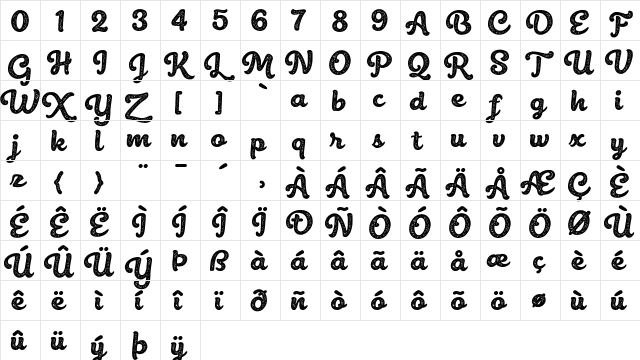
Belmonte Rough Regular
Design Context for Belmonte Rough Typeface
Belmonte Rough embraces imperfection — its rough, textured character adds raw authenticity to designs that want to feel lived-in and unconventional.
Suited to punk-influenced zines, underground music branding, streetwear, and raw, anti-corporate design.
Pro Tip: Pair Belmonte Rough with intentionally raw or lo-fi design elements. Fighting against it with overly polished surroundings will undermine its personality.